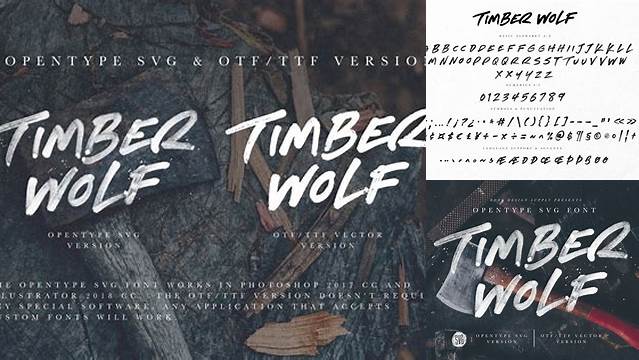
Timber Wolf SVG Font: Free Download And Usage Guide
Are you guys looking to elevate your design projects with a touch of wilderness and rugged charm? Look no further! The timber wolf SVG font is here to infuse your creations with a unique, hand-crafted feel. In this comprehensive guide, we'll dive deep into the world of timber wolf SVG fonts, exploring their versatility, where to find them for free, and how to use them effectively. So, buckle up, fellow designers, and let's embark on this exciting journey into the realm of typographic artistry!
What is a Timber Wolf SVG Font?
First things first, let's break down what exactly a timber wolf SVG font is. Unlike traditional fonts that are based on outlines, SVG fonts utilize Scalable Vector Graphics (SVG) format. This means they are made up of vector paths, which allows them to be scaled to any size without losing quality or becoming pixelated. Think of it as the difference between a photograph and a hand-drawn illustration – the illustration retains its sharpness no matter how much you zoom in. For timber wolf SVG fonts, this translates to a raw, textured, and hand-drawn aesthetic that mimics the natural strokes of a brush or pen. The beauty of timber wolf SVG fonts lies in their imperfections. They embrace the organic variations and slight irregularities that are inherent in handcrafted lettering, giving your designs a personal and authentic touch. Imagine a logo for an outdoor adventure brand, a poster for a rustic-themed event, or a website banner that exudes a sense of untamed beauty – the timber wolf SVG font can bring these visions to life with unparalleled character.
Key Features and Benefits
- Scalability: As mentioned earlier, the SVG format ensures that your font will look crisp and clear at any size, making it perfect for both print and digital applications.
- Hand-Drawn Aesthetic: The textured, imperfect nature of these fonts adds a touch of human artistry to your projects, making them stand out from the crowd of generic, overly polished designs. This is a huge benefit, guys, because it makes your work feel more authentic and relatable!
- Versatility: Timber wolf SVG fonts can be used in a wide range of projects, from logos and branding to posters, websites, and social media graphics.
- Uniqueness: Each letterform in a timber wolf SVG font possesses its own distinct personality, contributing to an overall design that is both captivating and memorable. They're not cookie-cutter fonts; they have soul!
- Modern and Rustic Blend: These fonts often strike a beautiful balance between contemporary design trends and rustic charm, making them ideal for projects that need a touch of both.
Online Design Communities
- Behance and Dribbble: These platforms are hubs for designers to showcase their work, and sometimes they offer freebies like fonts as part of their projects. Browse through design projects that resonate with the timber wolf theme, and you might stumble upon a free font.
- Creative Market (Free Goods Section): Creative Market, like Creative Fabrica, often offers free design assets, including fonts, on a weekly basis. Check their "Free Goods" section regularly for new additions.
Tips for Finding Hidden Gems
- Use Specific Keywords: Don't just search for "free font." Try more specific keywords like "rustic SVG font," "hand-drawn SVG font," or "textured font" to increase your chances of finding a timber wolf-esque font.
- Explore Font Foundries' Websites: Many independent font foundries offer free demo versions of their fonts, which may include a limited character set or specific weights. This can be a great way to try out a font before committing to a purchase.
- Follow Designers and Font Foundries on Social Media: Many designers and font foundries share free resources and exclusive deals with their followers on social media platforms like Instagram, Twitter, and Facebook. Stay connected to stay in the loop!
How to Use Timber Wolf SVG Fonts Effectively
Okay, so you've found the perfect timber wolf SVG font – now what? Here are some tips and tricks for using these fonts effectively in your design projects:
The timber wolf SVG font is a powerful tool for designers looking to add a touch of raw beauty and handcrafted charm to their projects. With their scalability, versatility, and unique aesthetic, these fonts can help you create designs that are both captivating and memorable. So, go ahead, guys, explore the world of timber wolf SVG fonts, unleash your creativity, and let your designs howl!